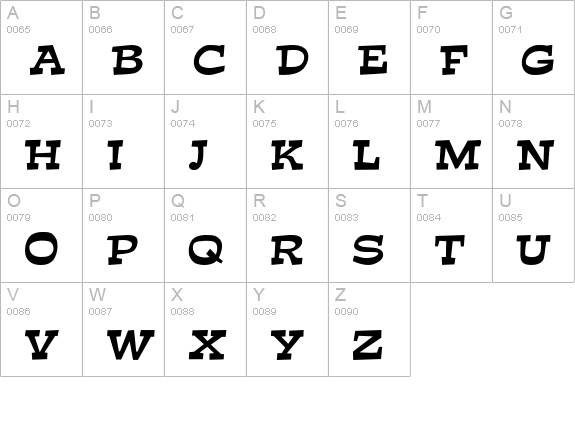
Mirisch Normal is the standard, neutral variant in the Mirisch typeface family \xE2\x80\x94 well suited to general body text, paragraphs, and standard typographic work.
Mirisch Normal is a versatile and modern font that exudes elegance and sophistication. With its clean lines and balanced proportions, this typeface is perfect for a wide range of design projects, from branding to editorial designs. Its timeless appeal makes it a go-to choice for designers looking to add a touch of class to their creations. What sets Mirisch Normal apart is not just its aesthetic appeal, but also the fact that it is completely free to download. Yes, you read that right - you can easily access this stunning font at FontsMarket.com without any cost. So why settle for ordinary when you can elevate your designs with Mirisch Normal for free? Download it today and unleash your creativity with this exceptional typeface.